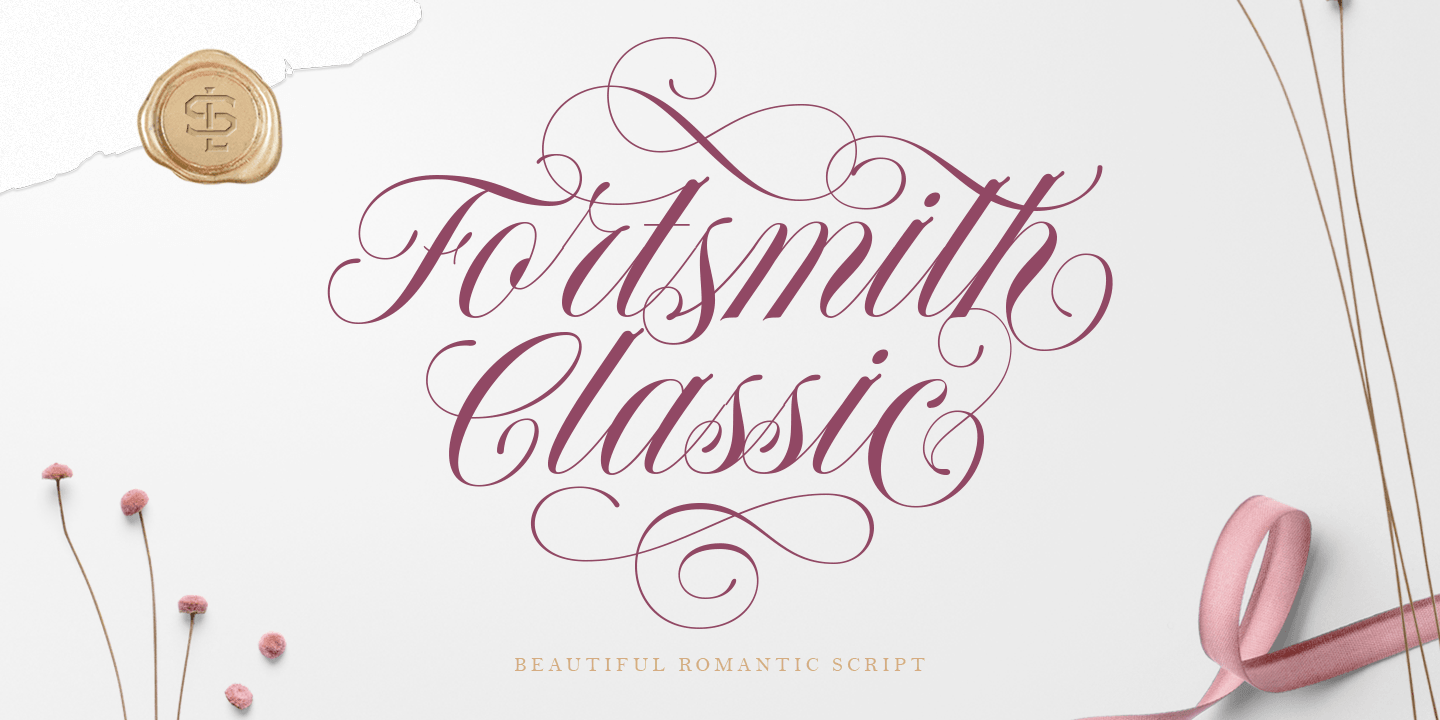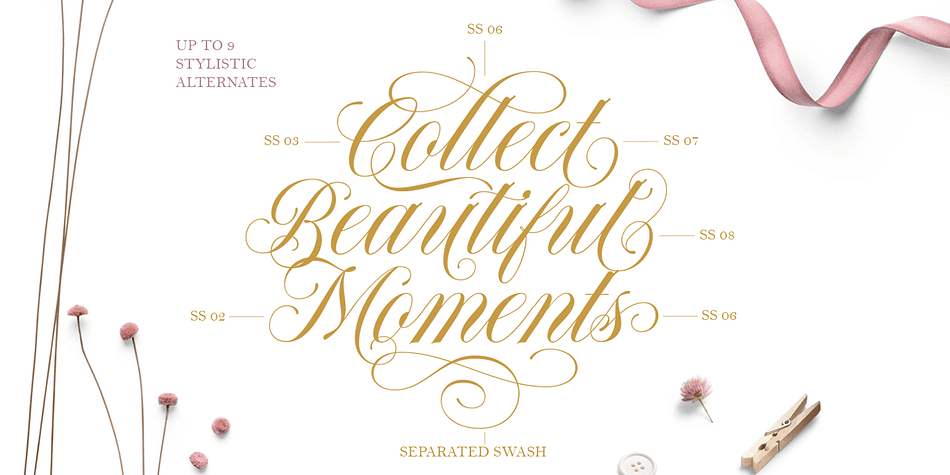
Designed by Hendry Juanda, Forthsmith Classic is a script and dingbat font family. This typeface has two styles and was published by Letterhend Studio.
Please welcome our newest script typeface, Forthsmith Classic. A Beautiful and classy script that has many swashes that allows you to create beautiful lettering instantly. it has many stylistic set alternates that you can choose from. the swashes also provided in EPS file format as well.
This font perfectly made to be applied especially in logo, and the other various formal forms such as invitations, labels, logos, magazines, books, greeting / wedding cards, packaging, fashion, make up, stationery, novels, labels or any type of advertising purpose.
uppercase & lowercase
numbers and punctuation
multilingual
ligatures
alternates
swashes